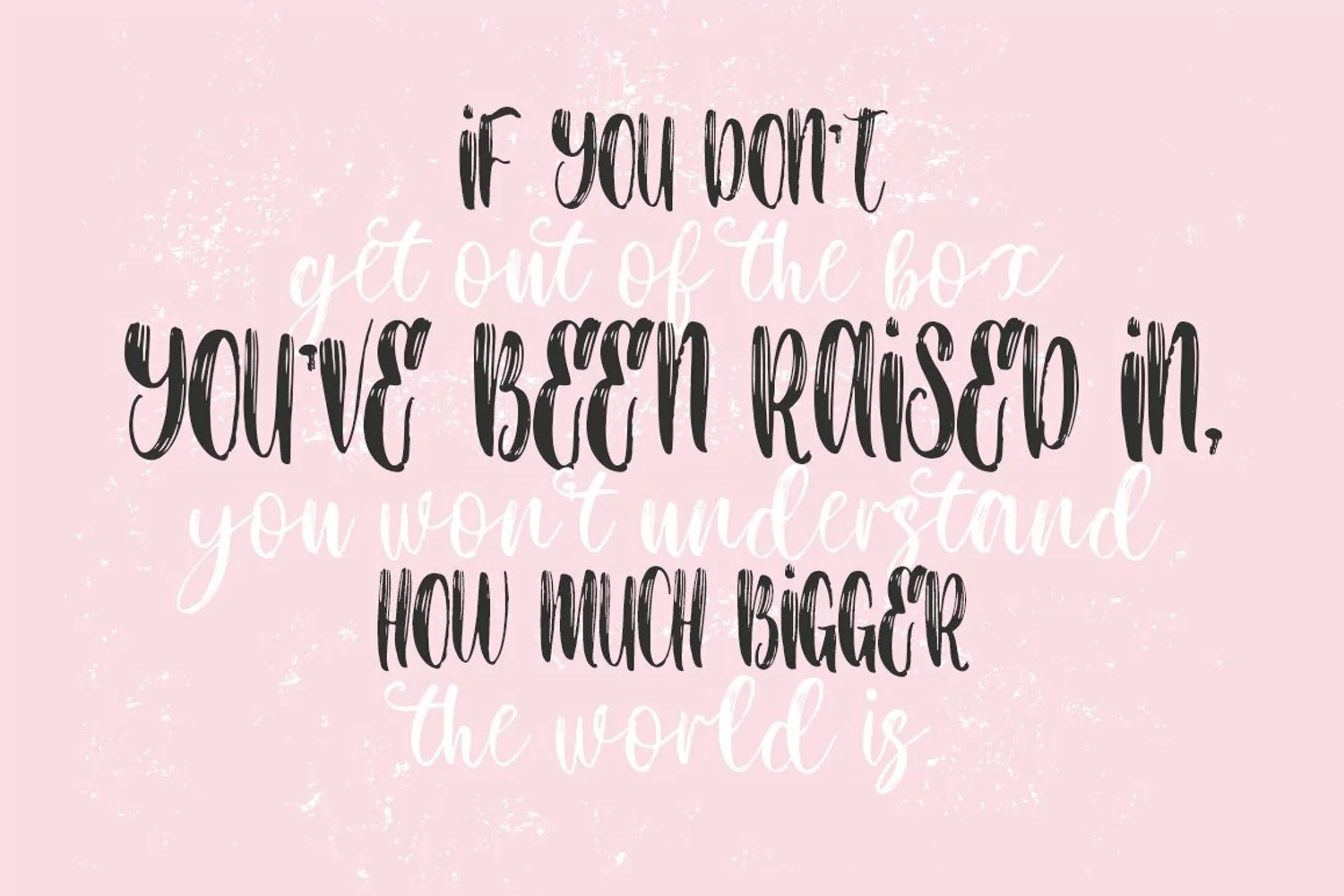
**Children Dreams** - a new fresh handmade calligraphy font.
--- Very suitable for greeting cards, branding materials, business cards, quotes, posters, and more!This font are perfect for wedding postcard. Or you can create perfect and unique design of your logo, blog, stationery, marketing, magazines and more :)